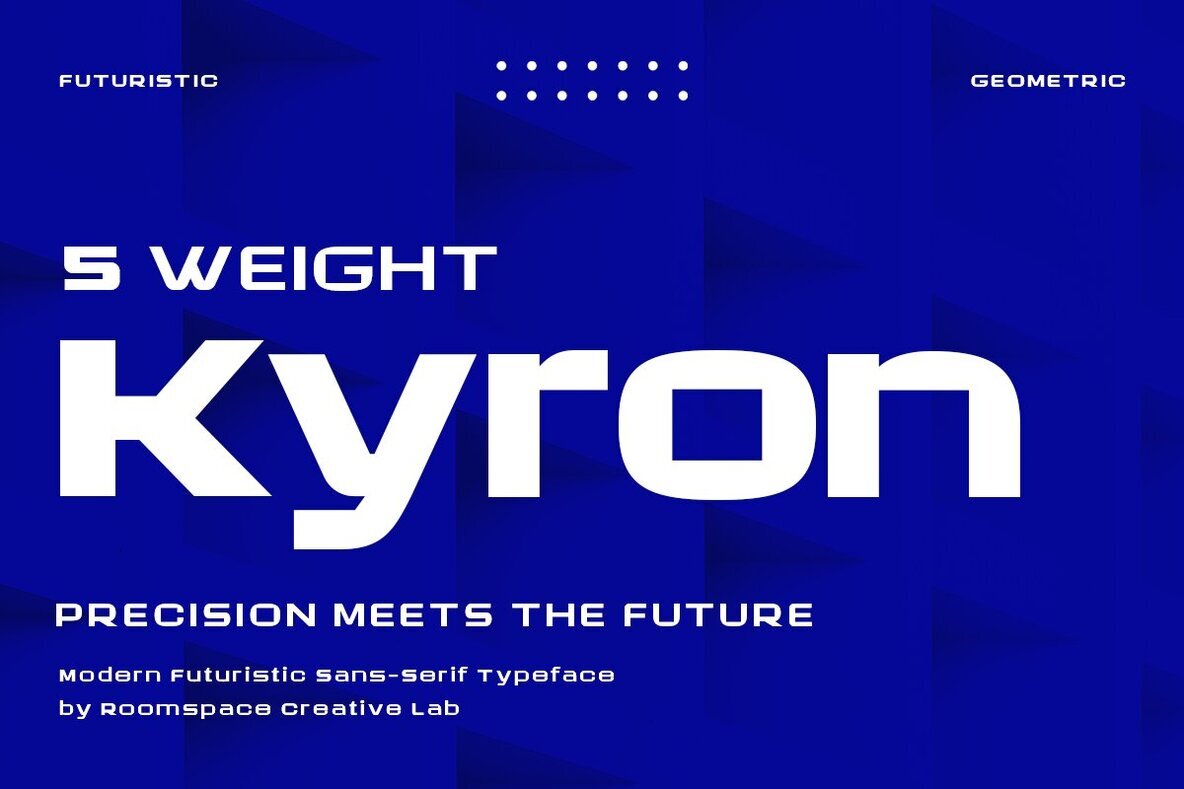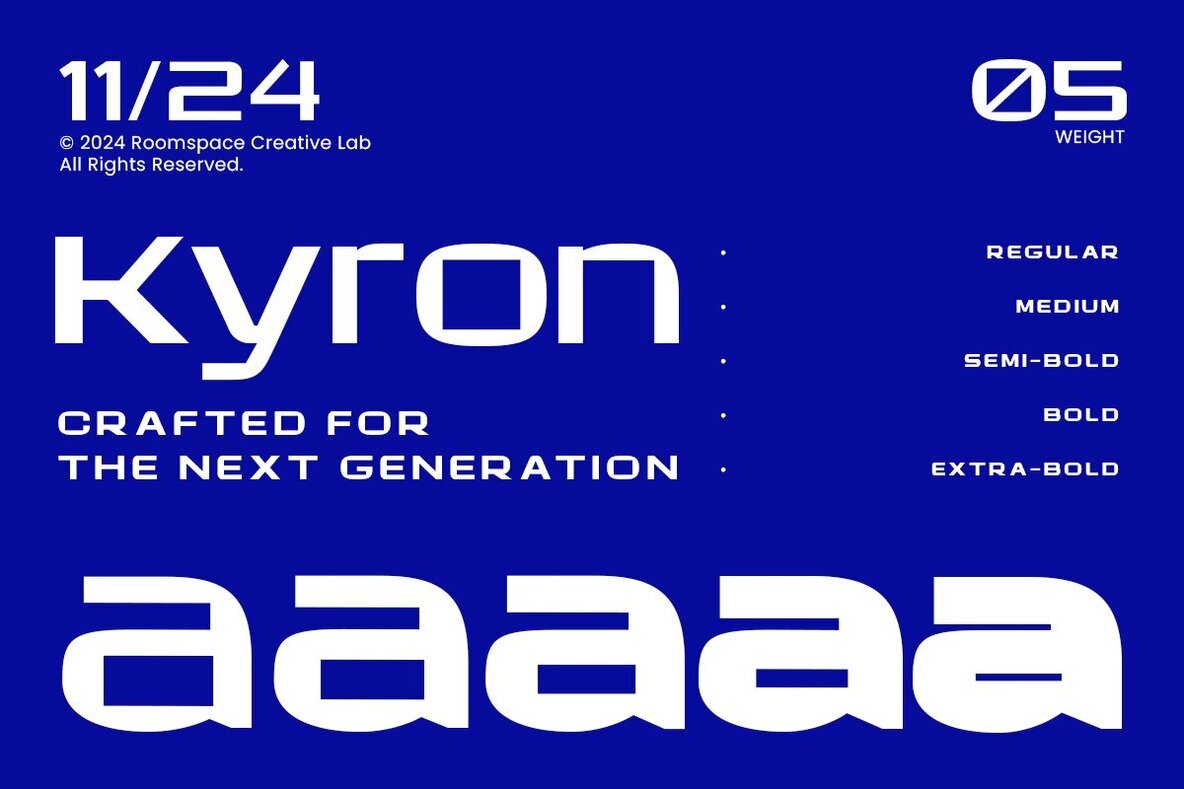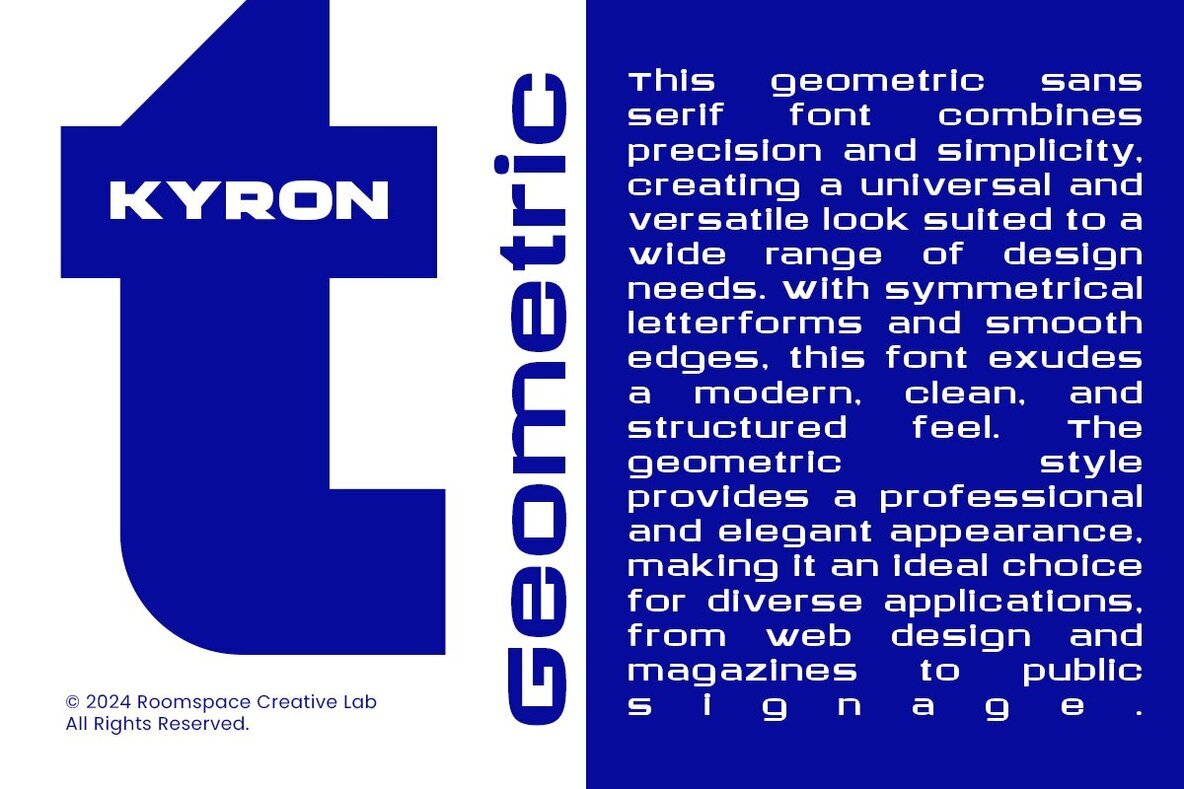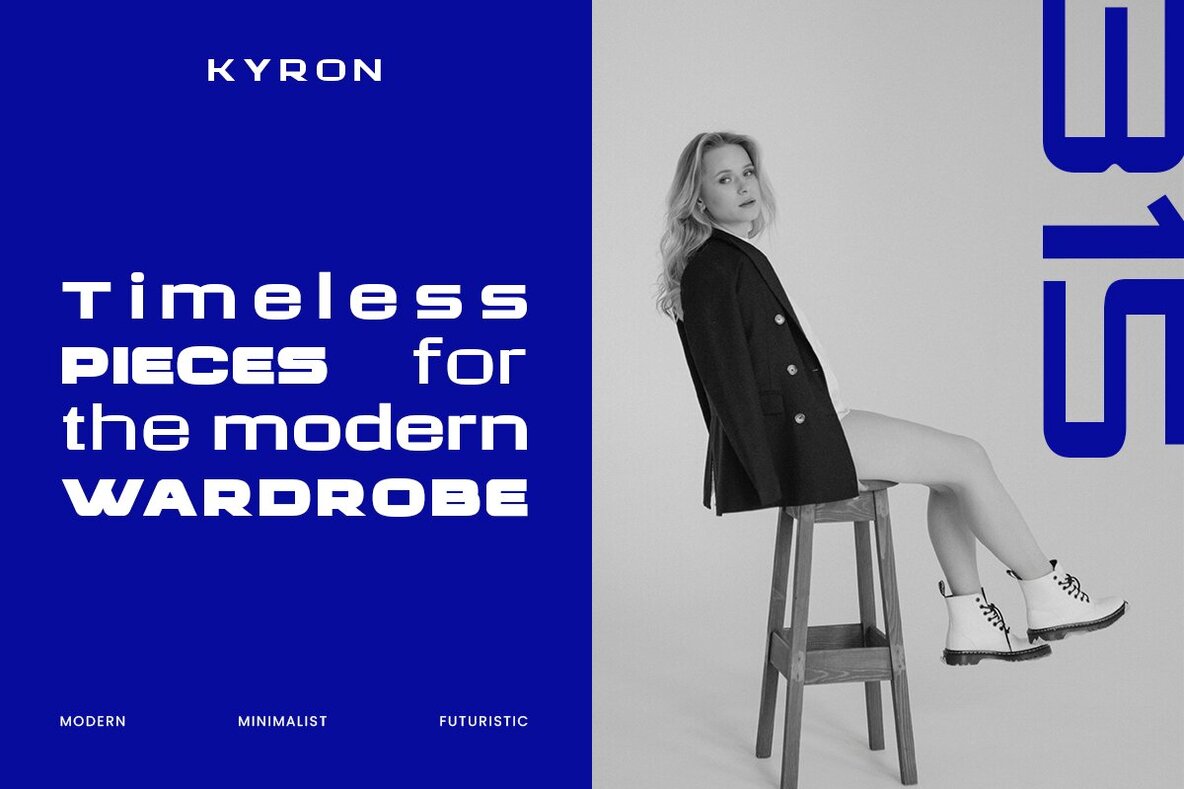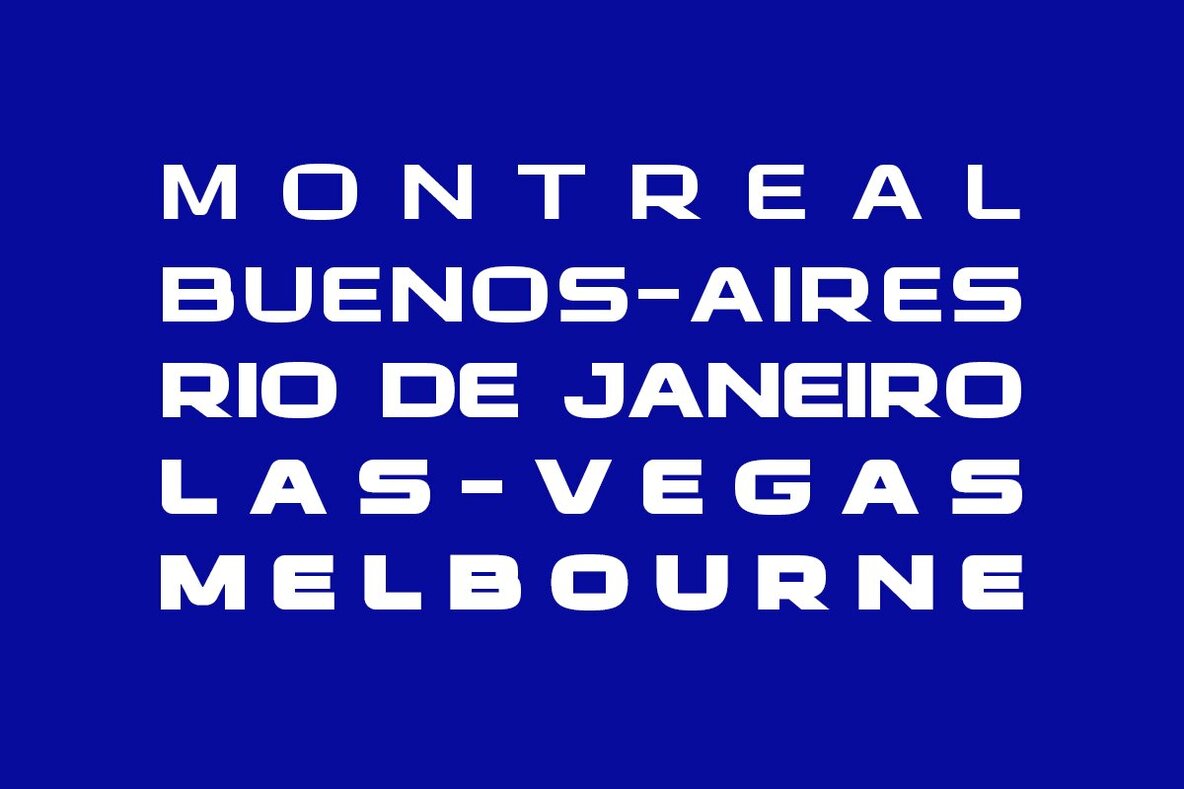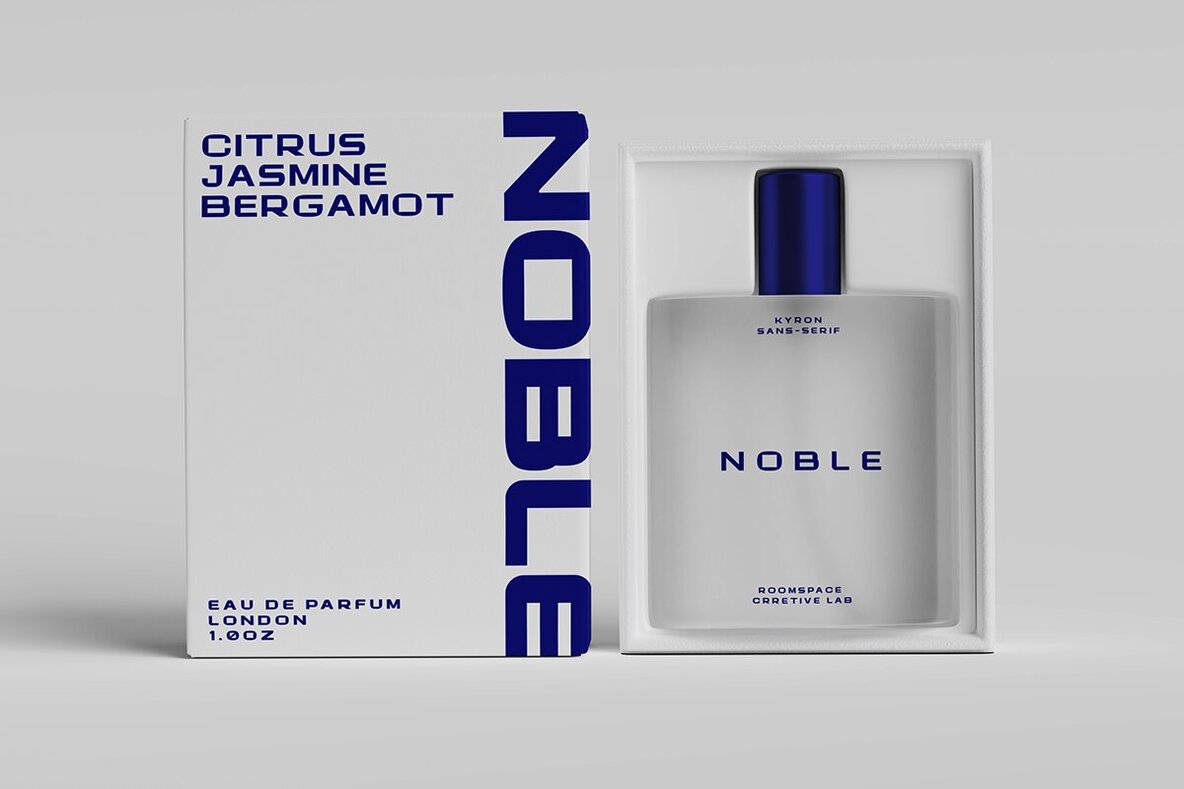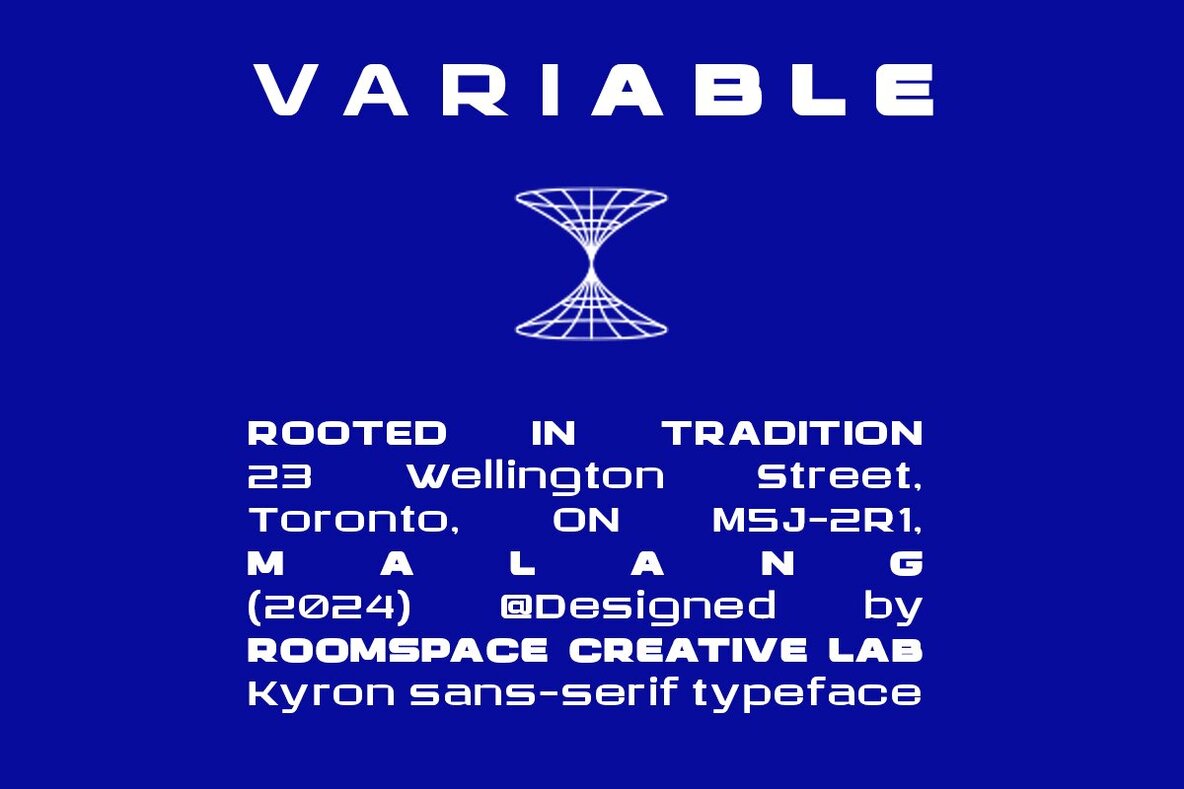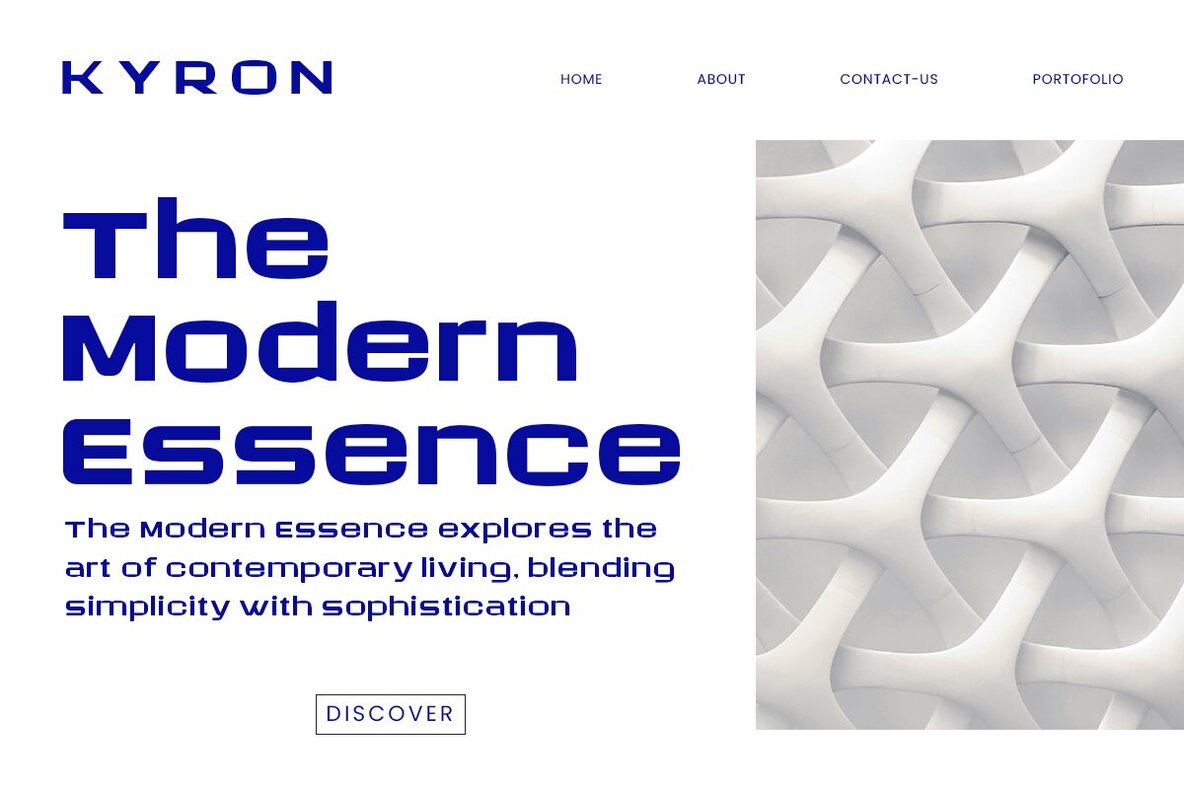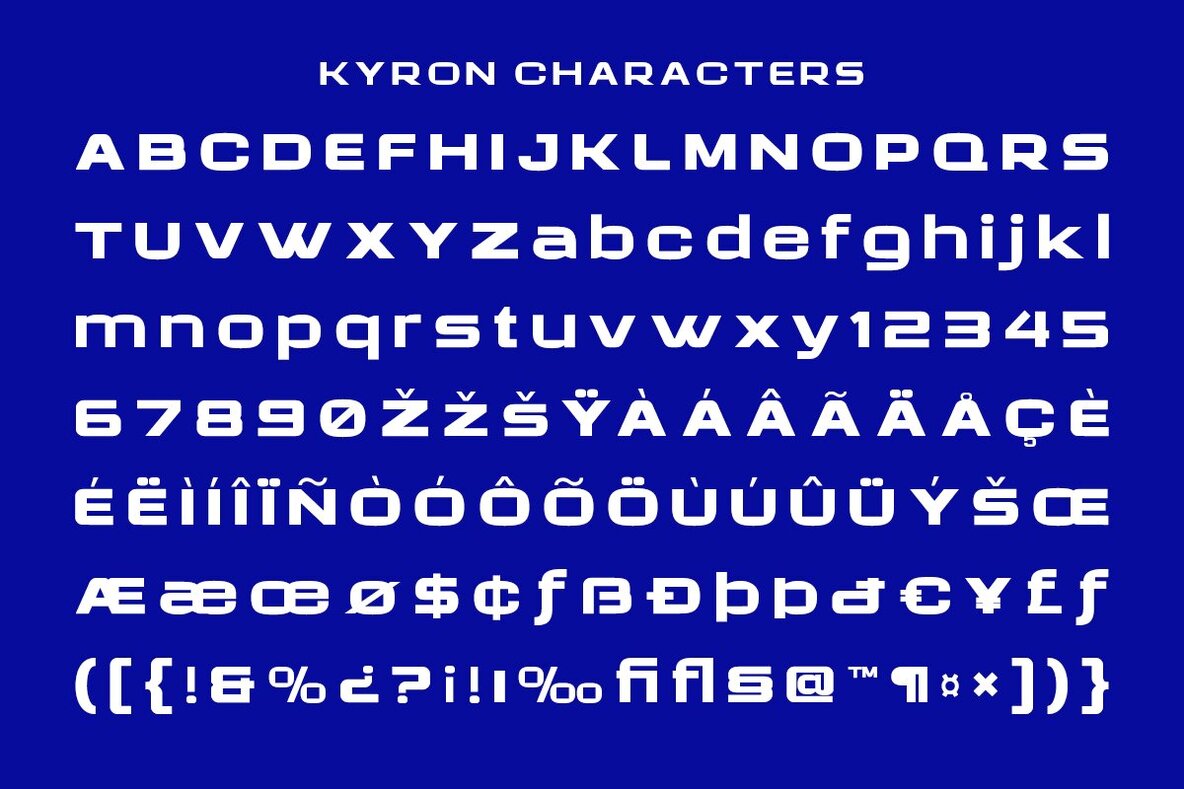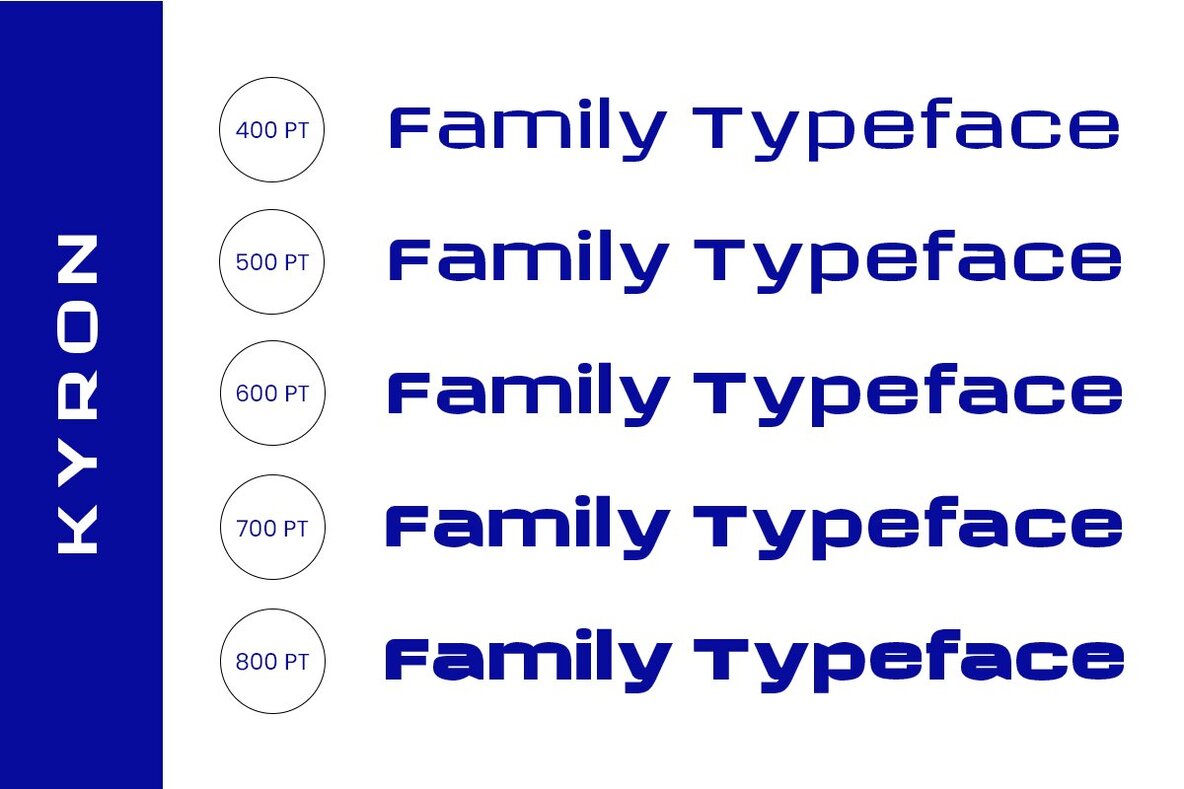
Kyron Font
Discover Kyron, a versatile sans serif font family tailored for modern, professional projects. Offering five distinct weights from Regular to ExtraBold, Kyron ensures flexibility to suit any designer's needs. Its clean lines and well-balanced structure are ideal for branding, logo design, websites, and print applications. Each weight is crafted with precision, guaranteeing clarity and readability across various sizes, while the sleek design adds a polished and trustworthy touch to your text.Kyron Sans Serif Font Family